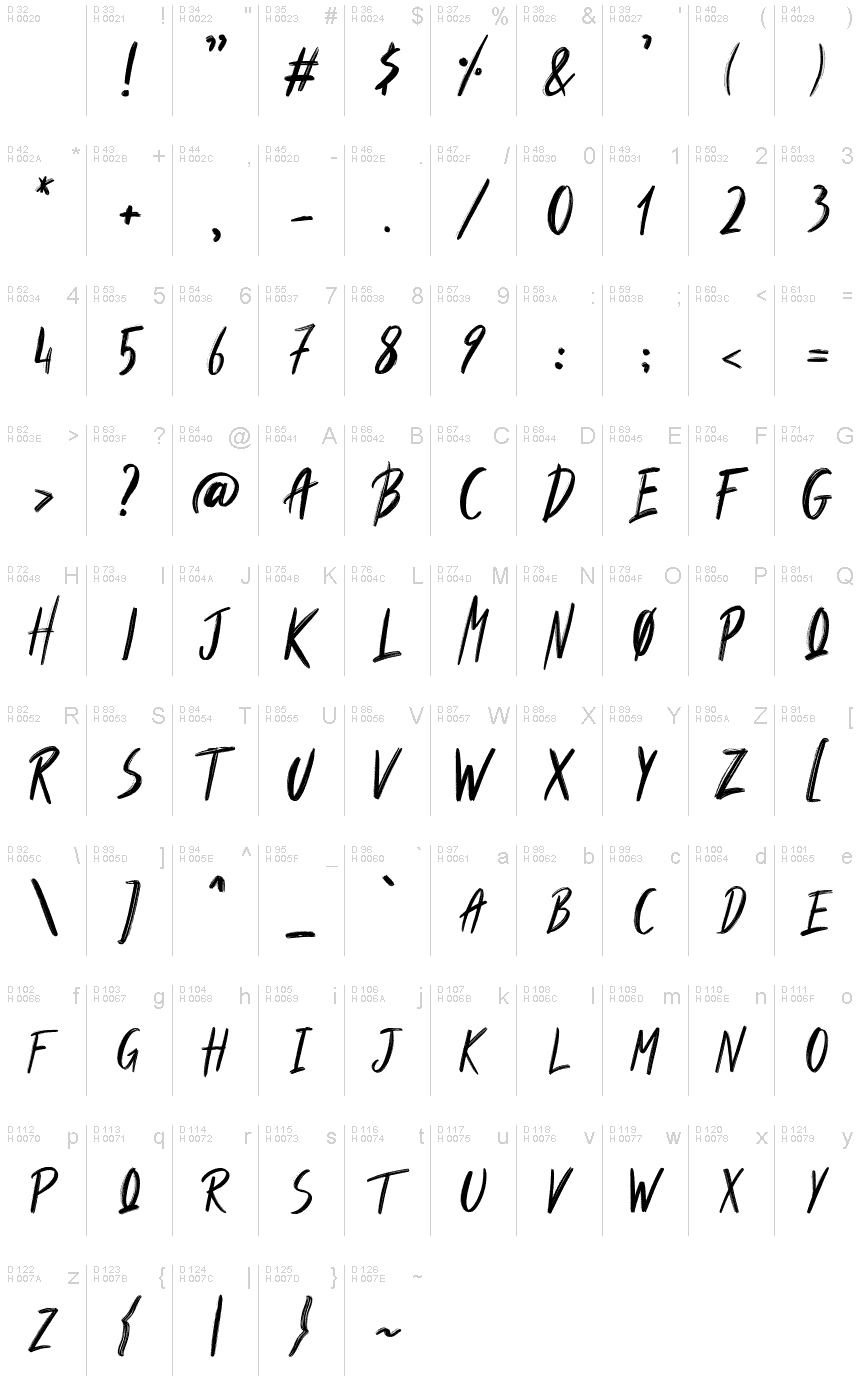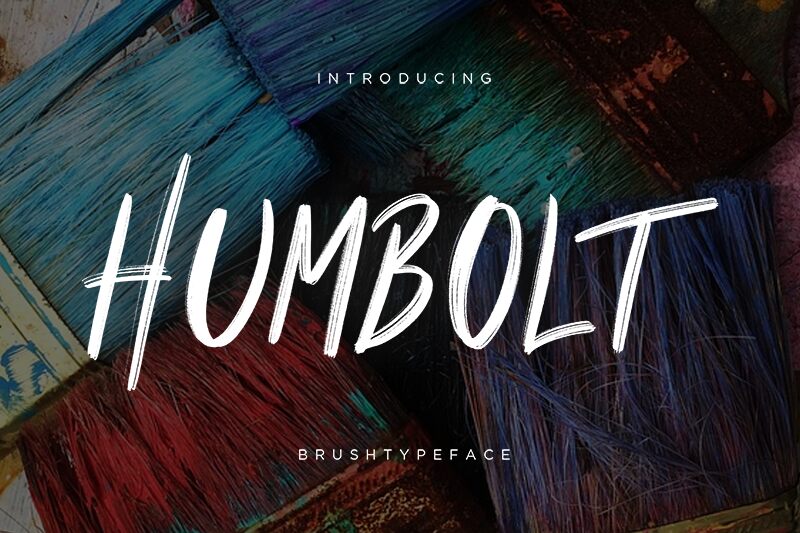
Humbolt Regular
Humbolt, the latest addition to Creatype Studio's collection of brush fonts, brings a unique and dynamic touch to any design project. With its semi-light weight and condensed width, Humbolt is perfect for creating eye-catching titles and headlines that demand attention. The brush style adds an organic touch to all sorts of designs, from branding materials to social media graphics. Whether you're designing a poster for a music festival or creating a menu for a trendy restaurant, Humbolt will add personality and character to your work. Try it out today and see how this versatile semi-light brush font can elevate your designs!
Humbolt
Creatype Studio Co.™